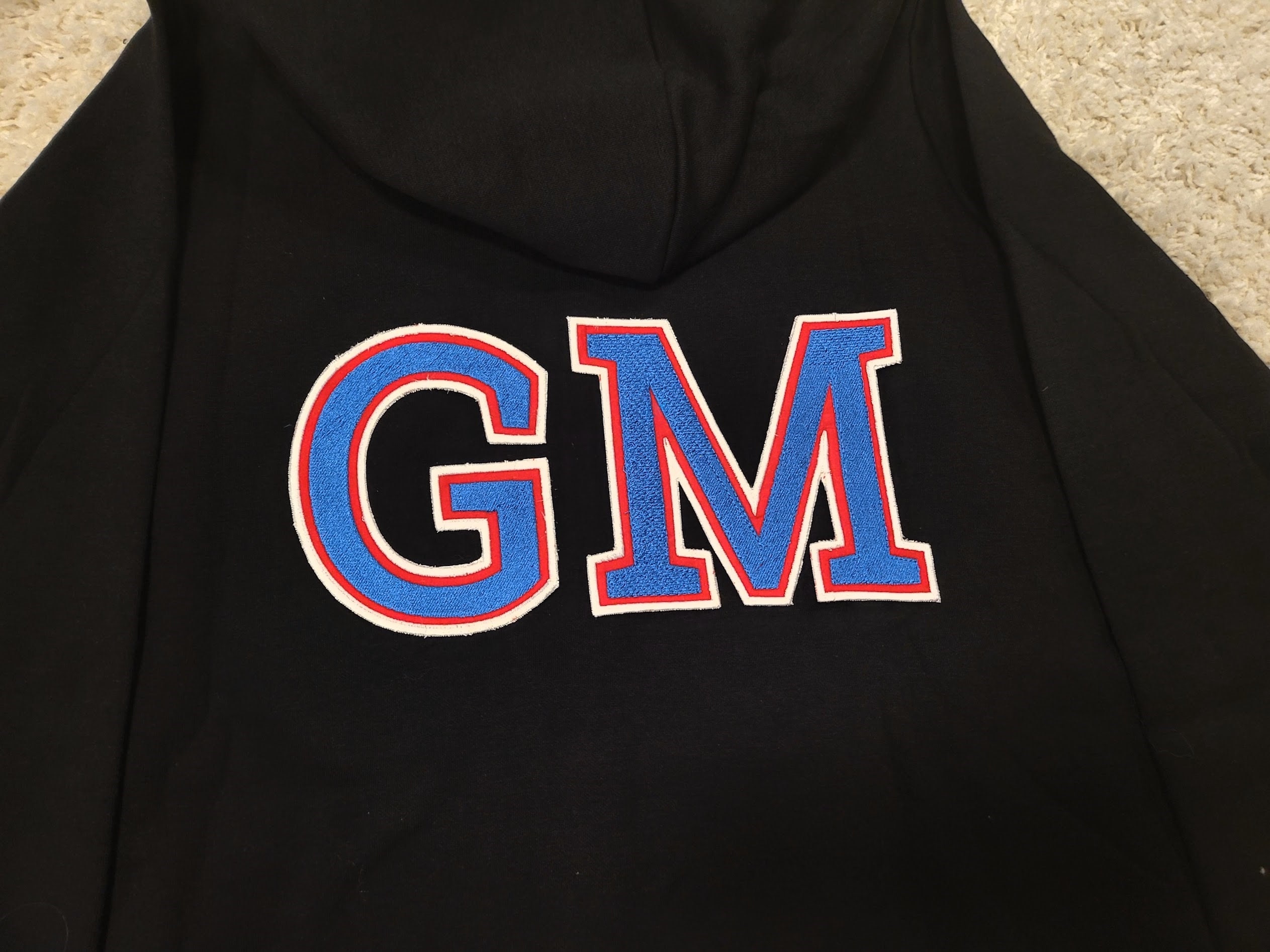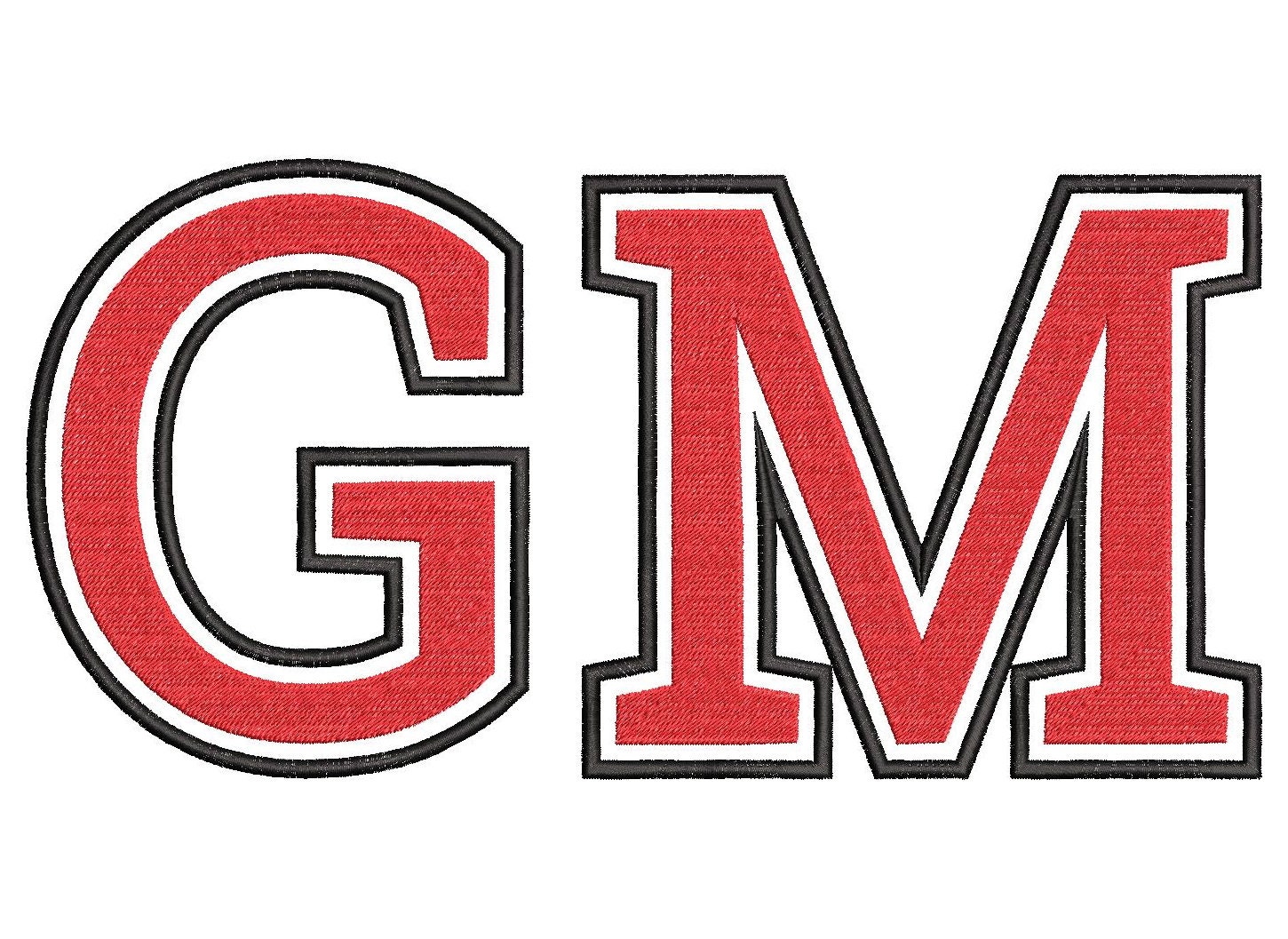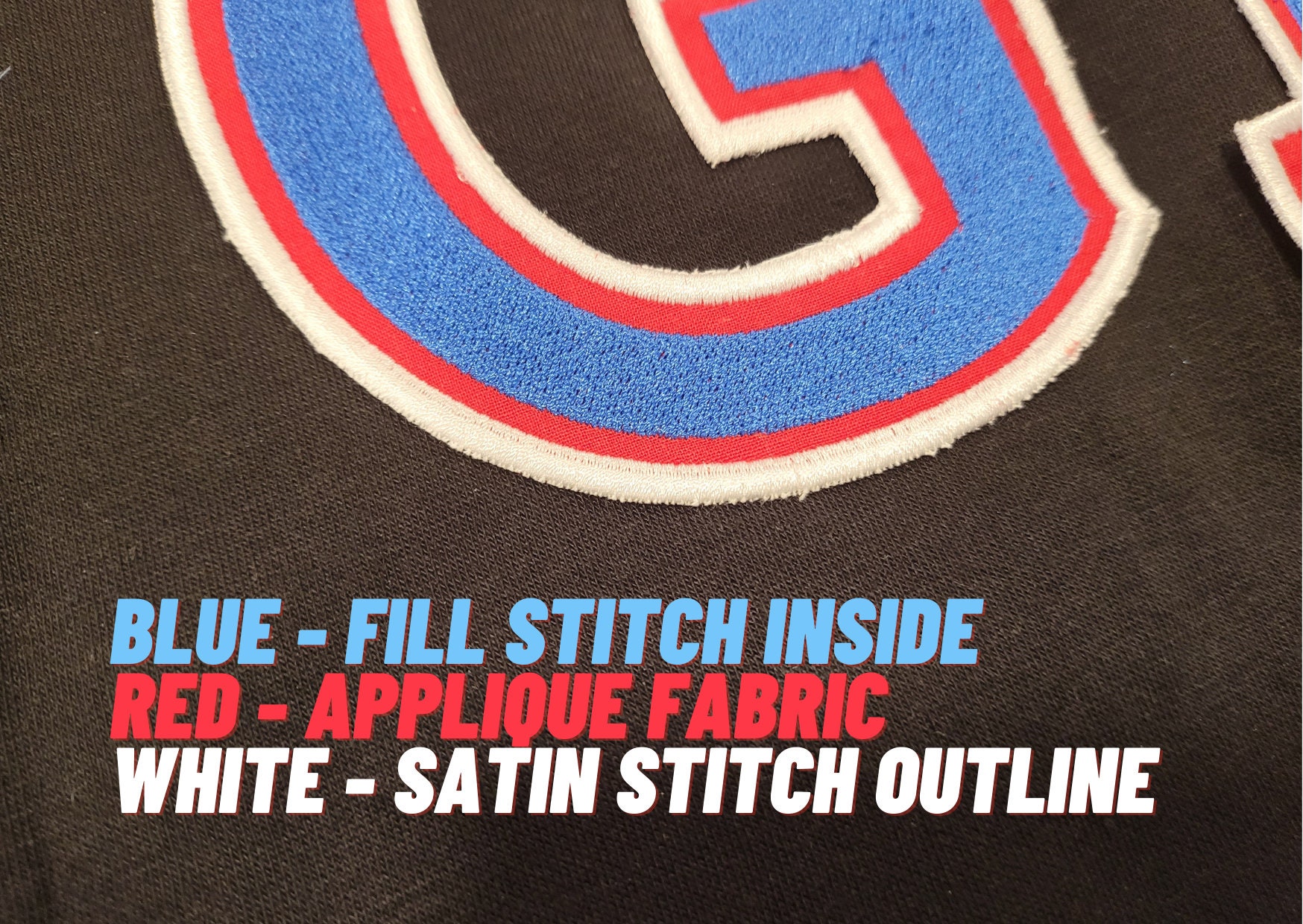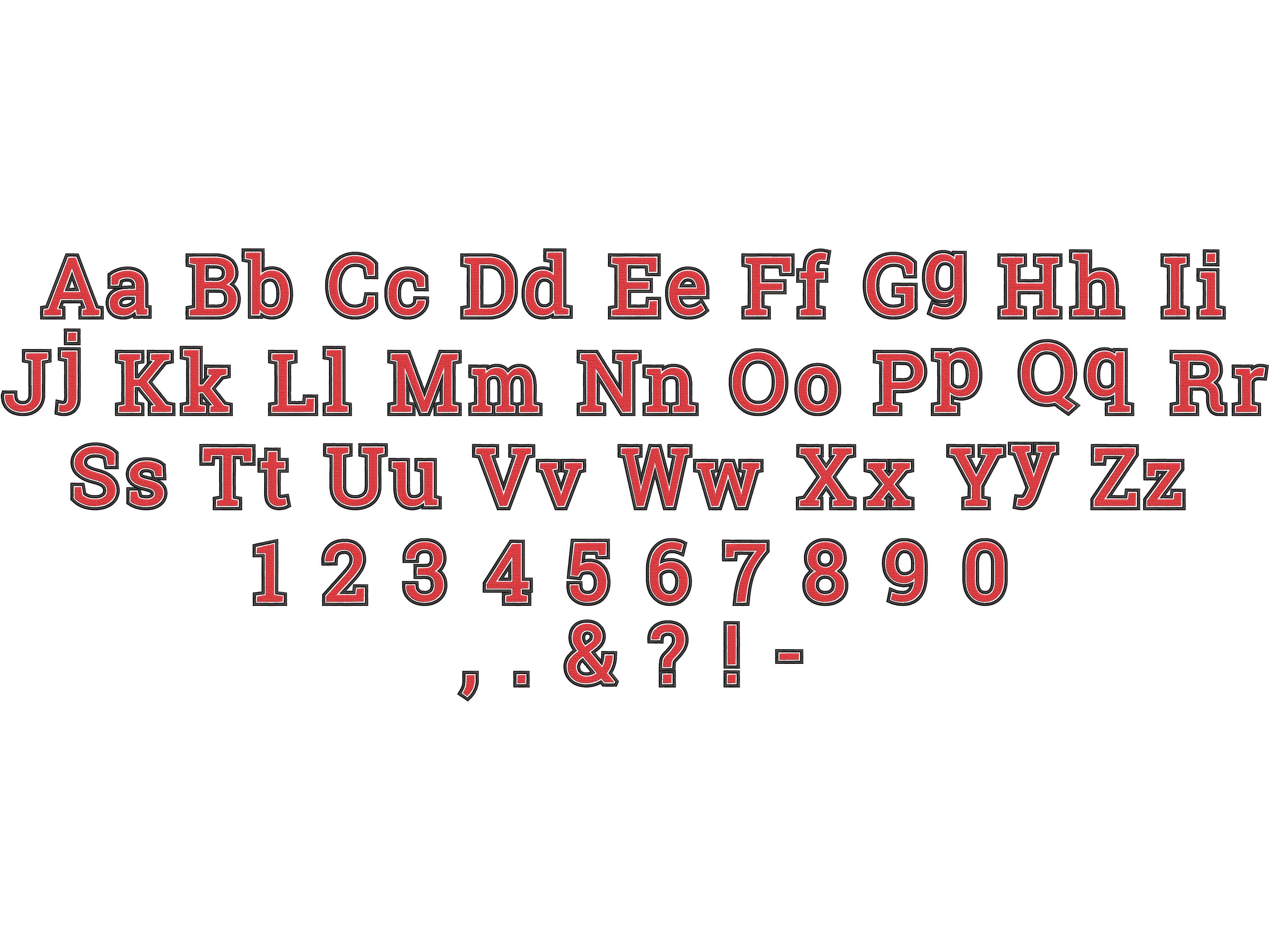
Big two double layers Font applique and fill stitch on top Athletic Sport High School Team Players machine embroidery designs alphabet, BX included
Whole alphabet: uppercase and lowercase letters, numbers and punctuation.
The first layer is an applique with a wide nice satin stitch outline.
The second layer is the fill stitch.